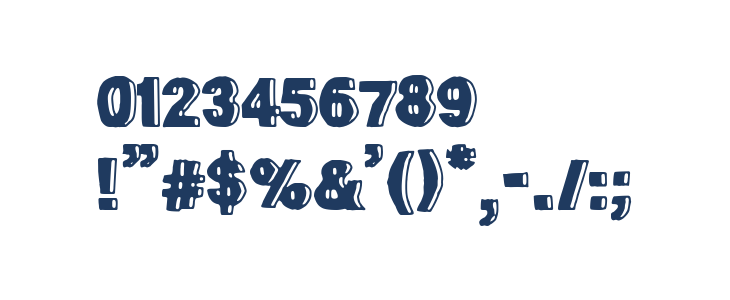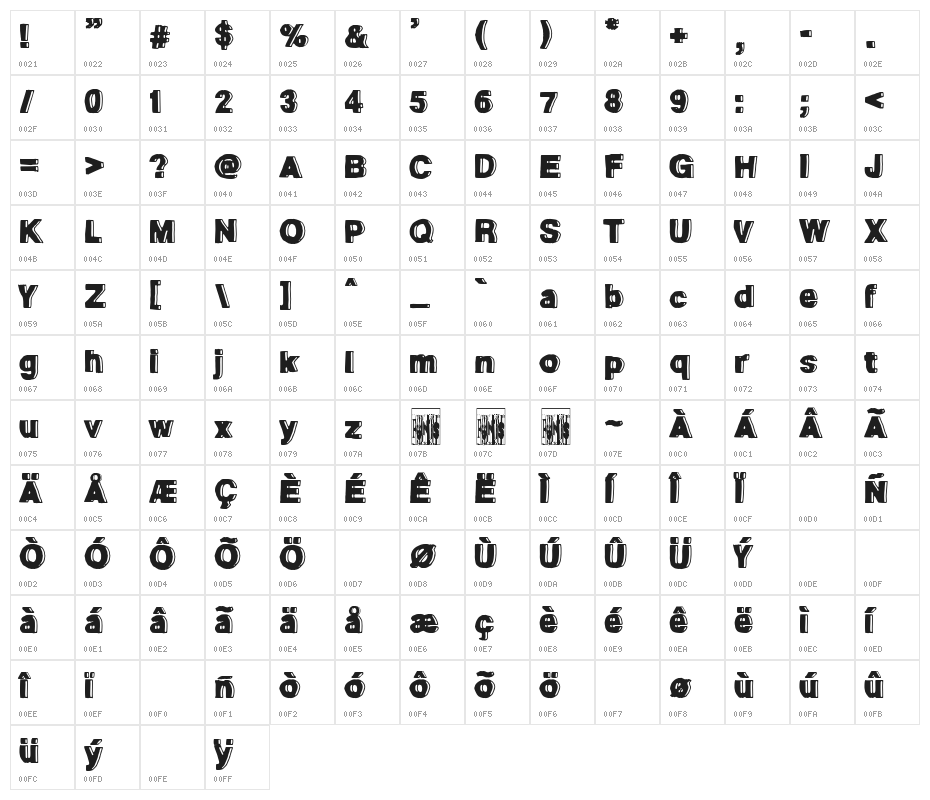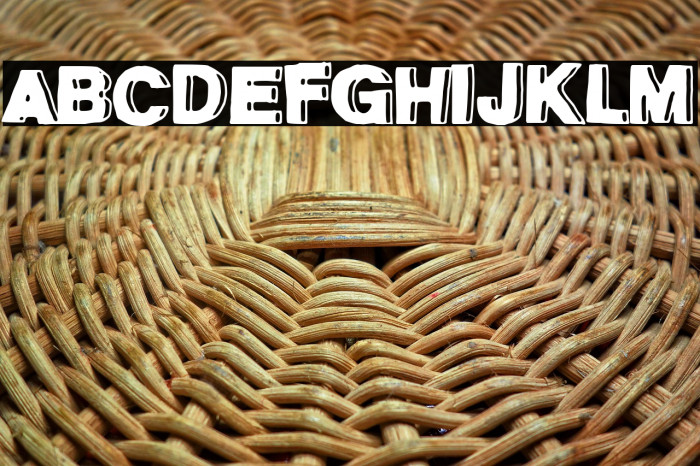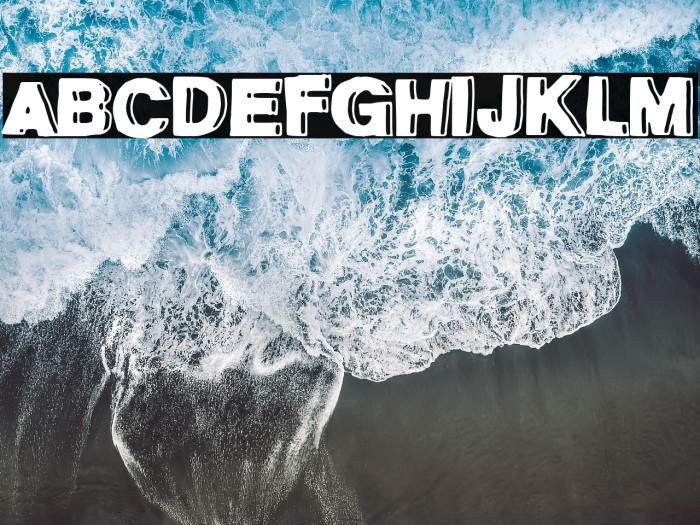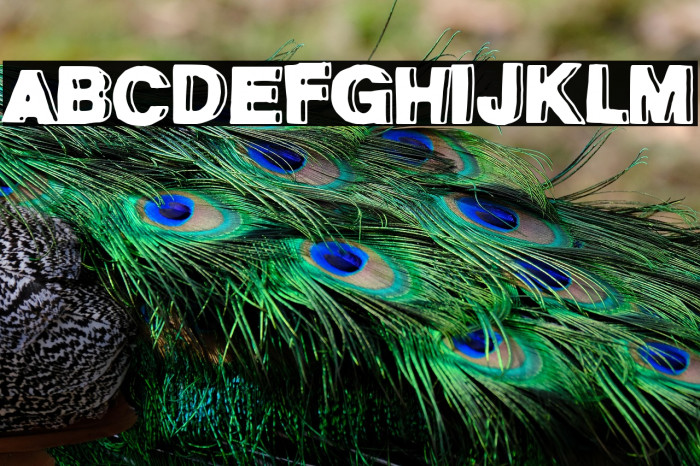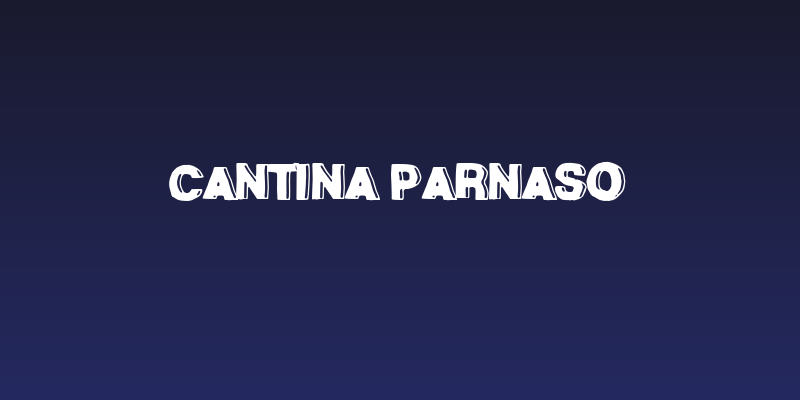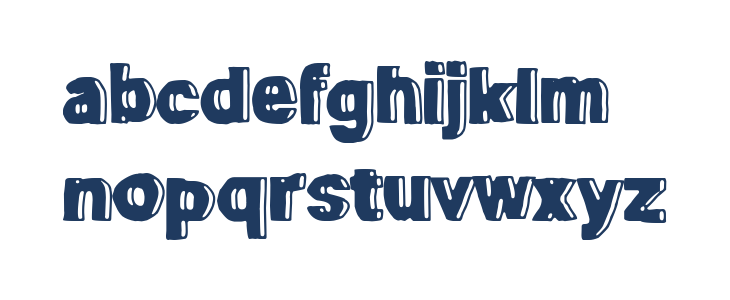
Cantina Parnaso Font
Cantina Parnaso Description
This font features a bold and playful design with a distinctly decorative style. Each character is filled with a solid black color, contrasted by white cut-out shapes that add a unique, almost stencil-like appearance. The letters are wide and chunky, with a slightly irregular form that gives them a hand-crafted feel. The font's boldness and high contrast make it stand out, while the playful cut-outs add a whimsical touch. This style is eye-catching and suitable for creative and artistic projects.
| Proposed Projects | Ideal for posters, album covers, children's books, and creative branding projects. |